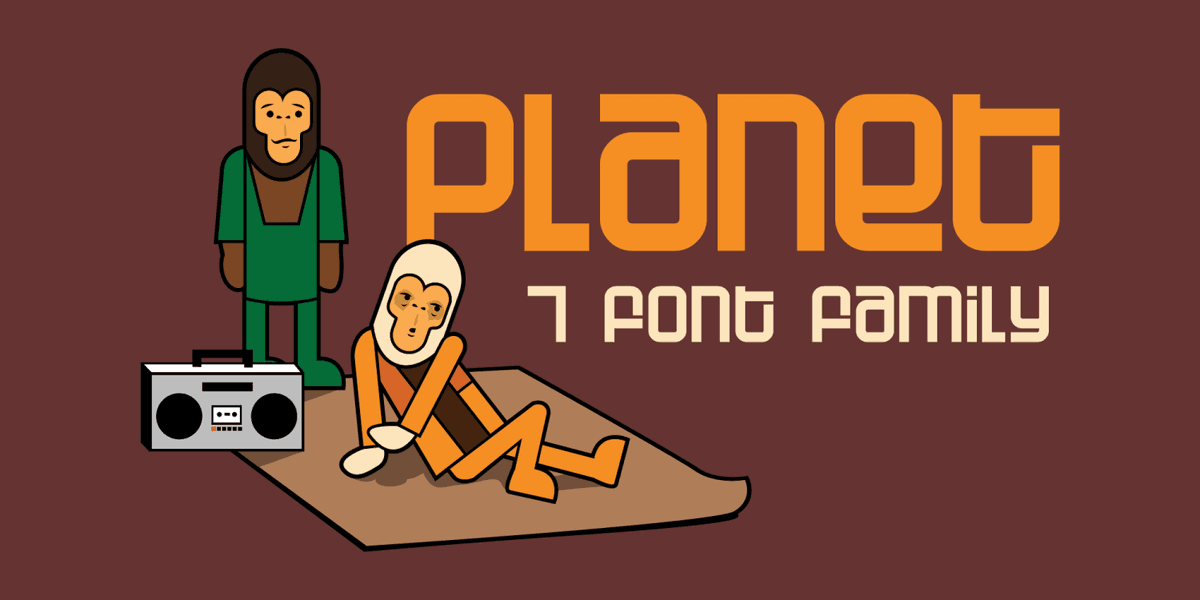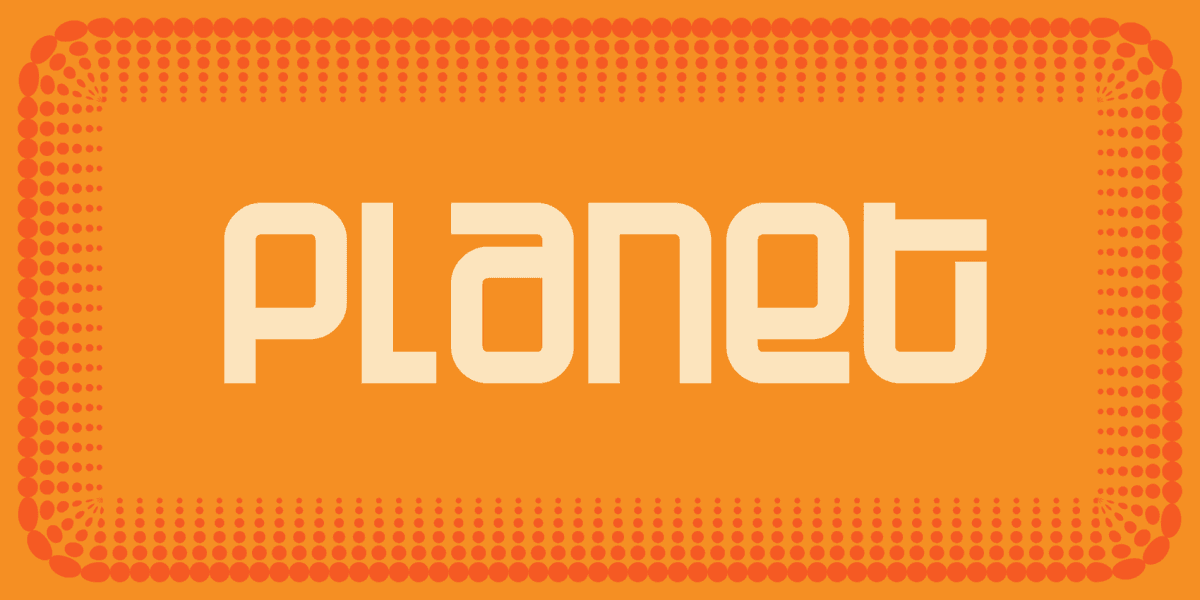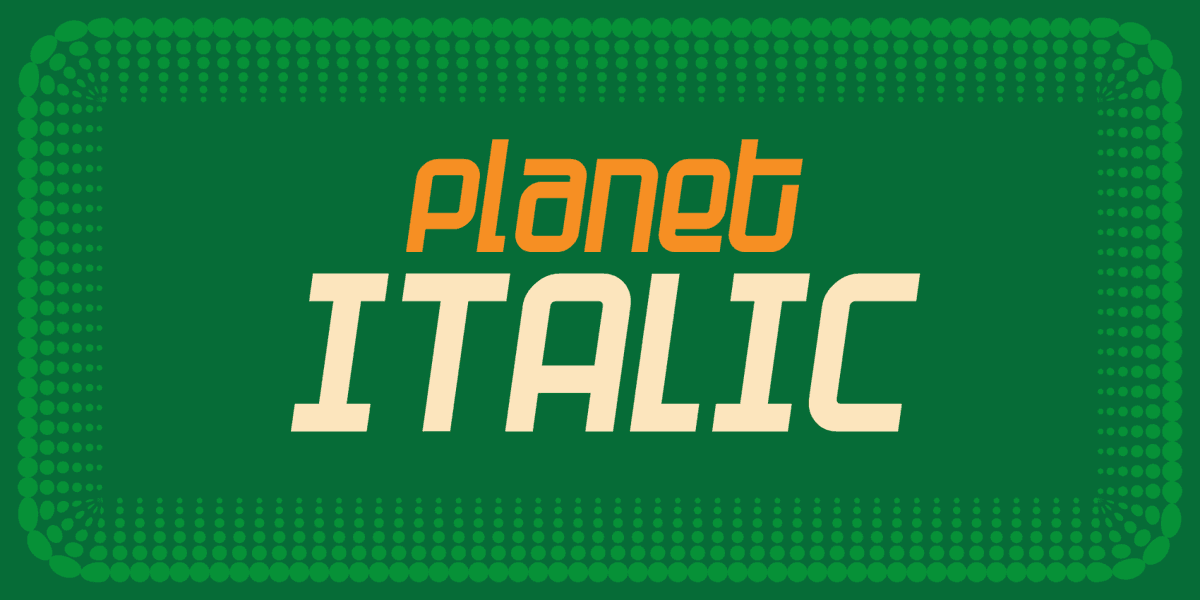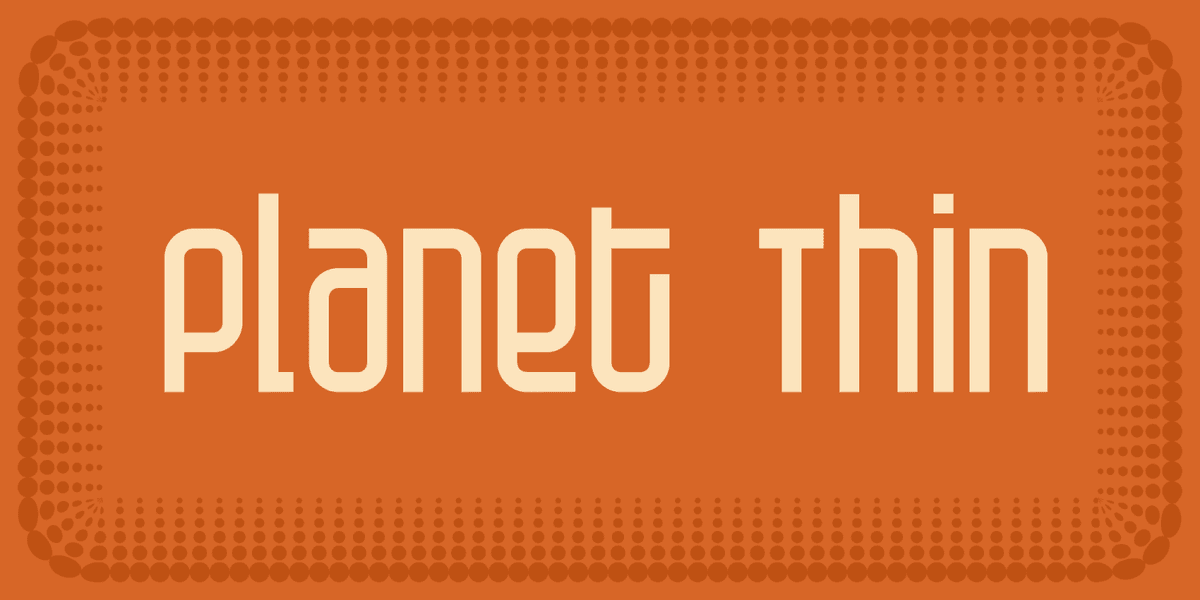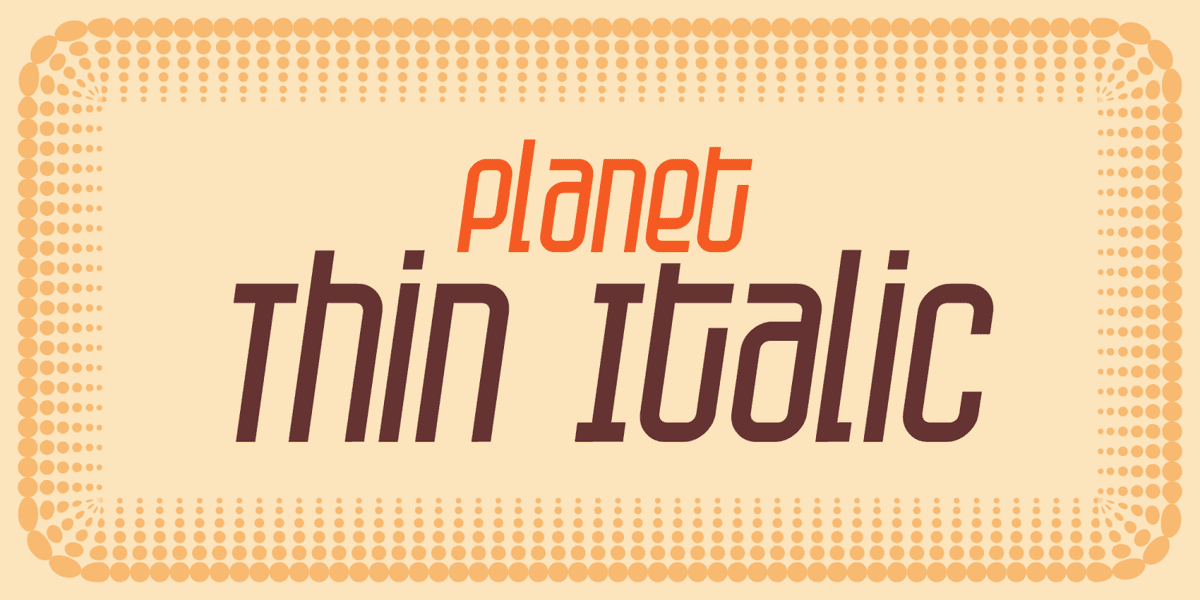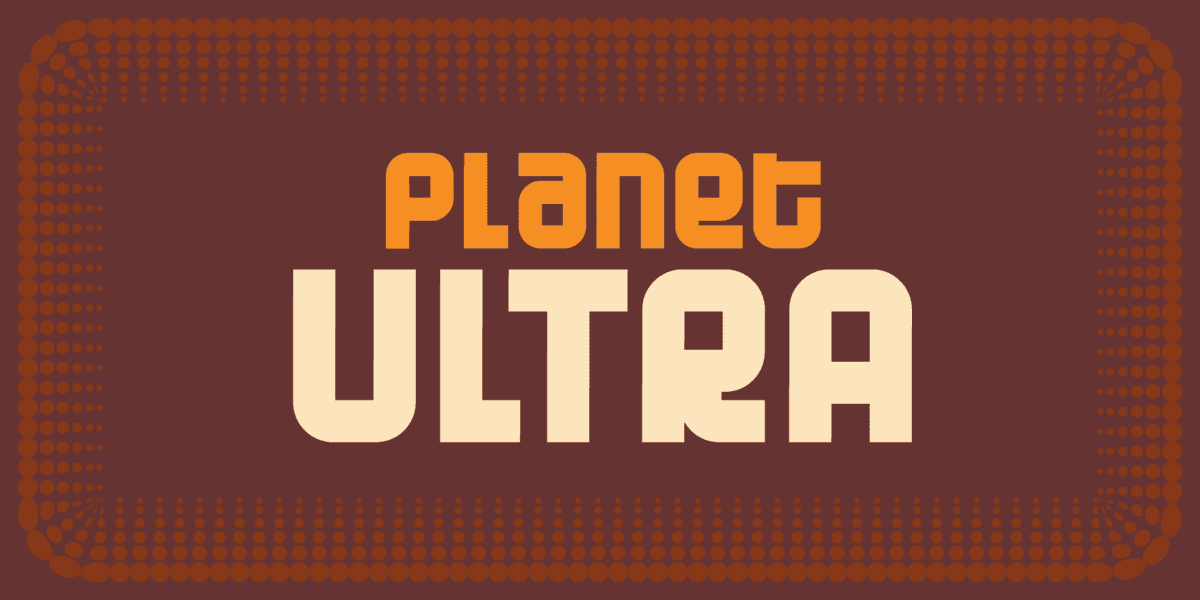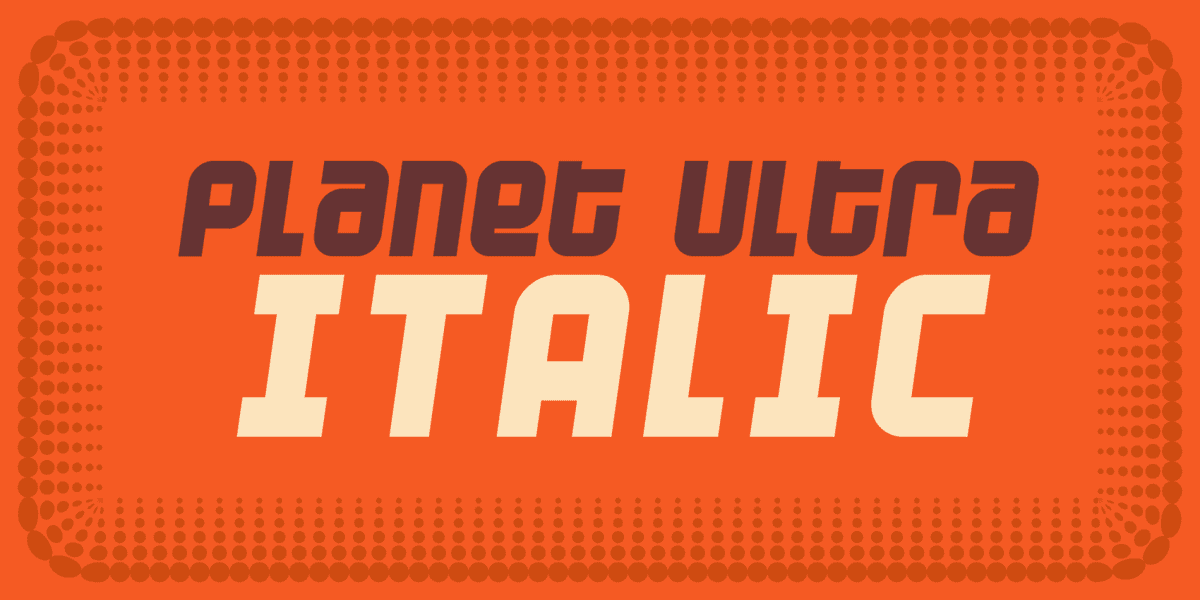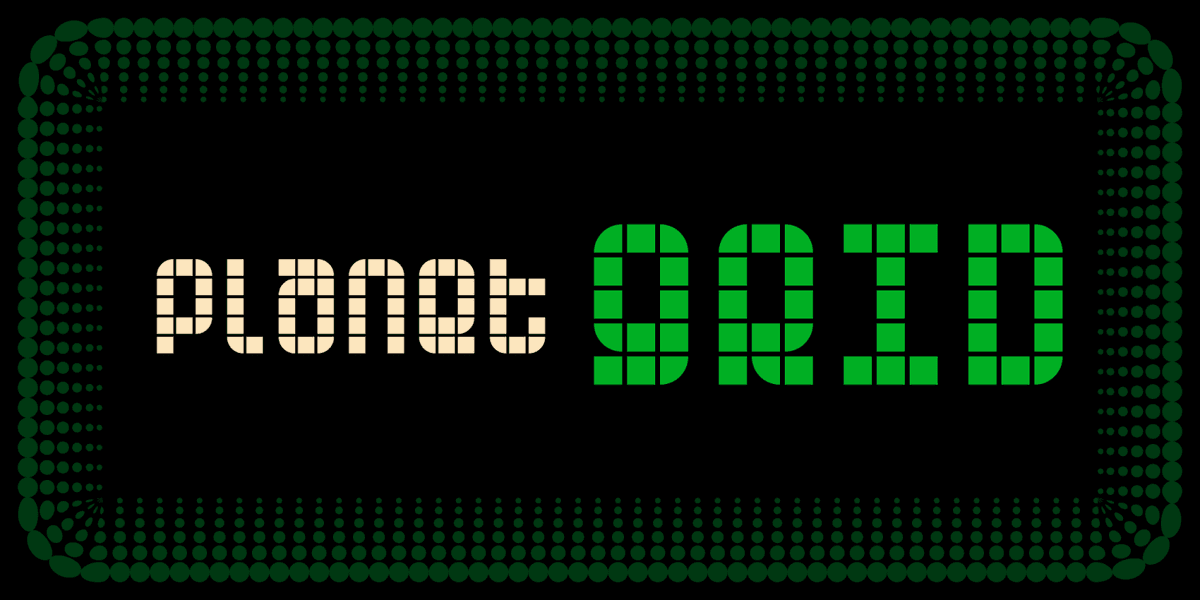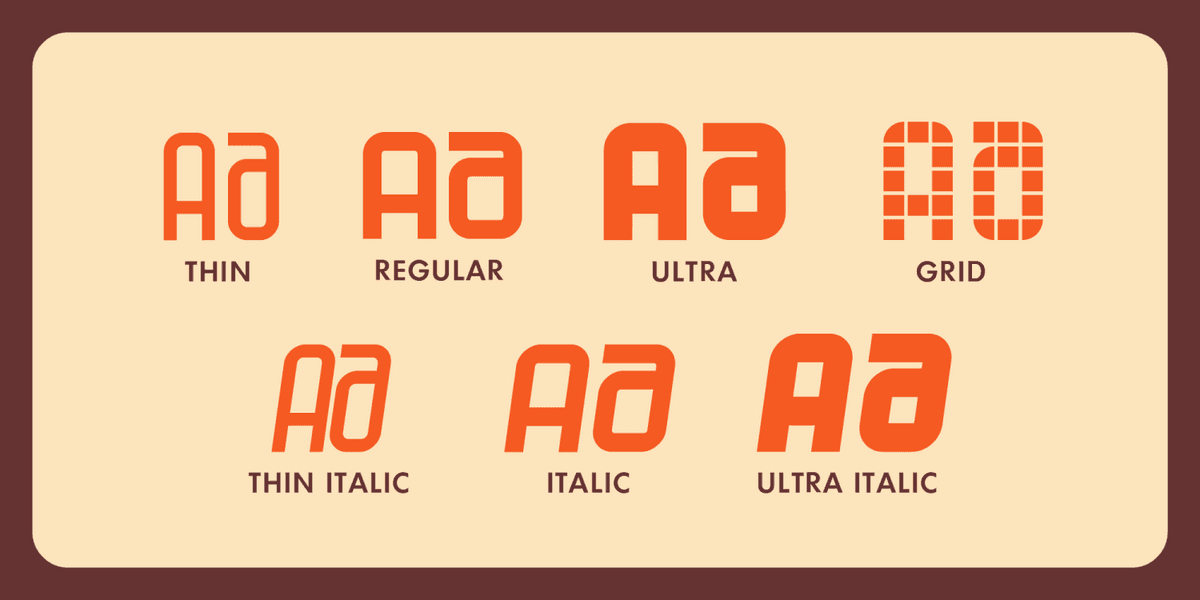
After I finished designing Planet, it looked really familiar. I make a lot of fonts, so sooner or later I'm bound to make one that looks like another. I finally figured out it was a cross between dopenakedfoul and SuperVixen. Go figure. What does that have to do with Dr. Zaius breakin' on the cardboard? You tell me. I'm tired of knowing all the answers. Cool font though, huh? I made a remix of it called Gravity.